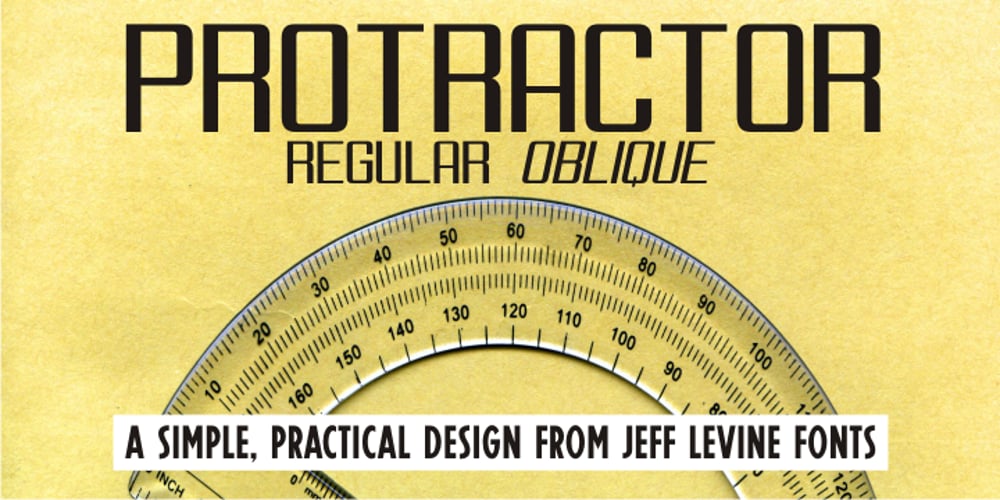
Protractor JNL Font Family was designed by Jeff Levine and published by Jeff Levine. Protractor JNL contains 2 styles and family package options. Protractor JNL and Protractor Oblique JNL are basic block fonts with thick-and-thin line widths.